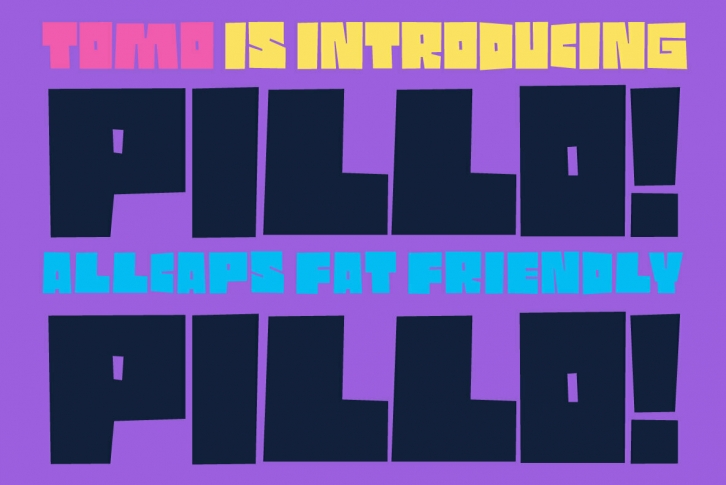
TOMO Pillo! A blocky style fat face with attitude. Bold, heavy and fun, all at the same time! You'll only need this font to make your designs stand out fresh!